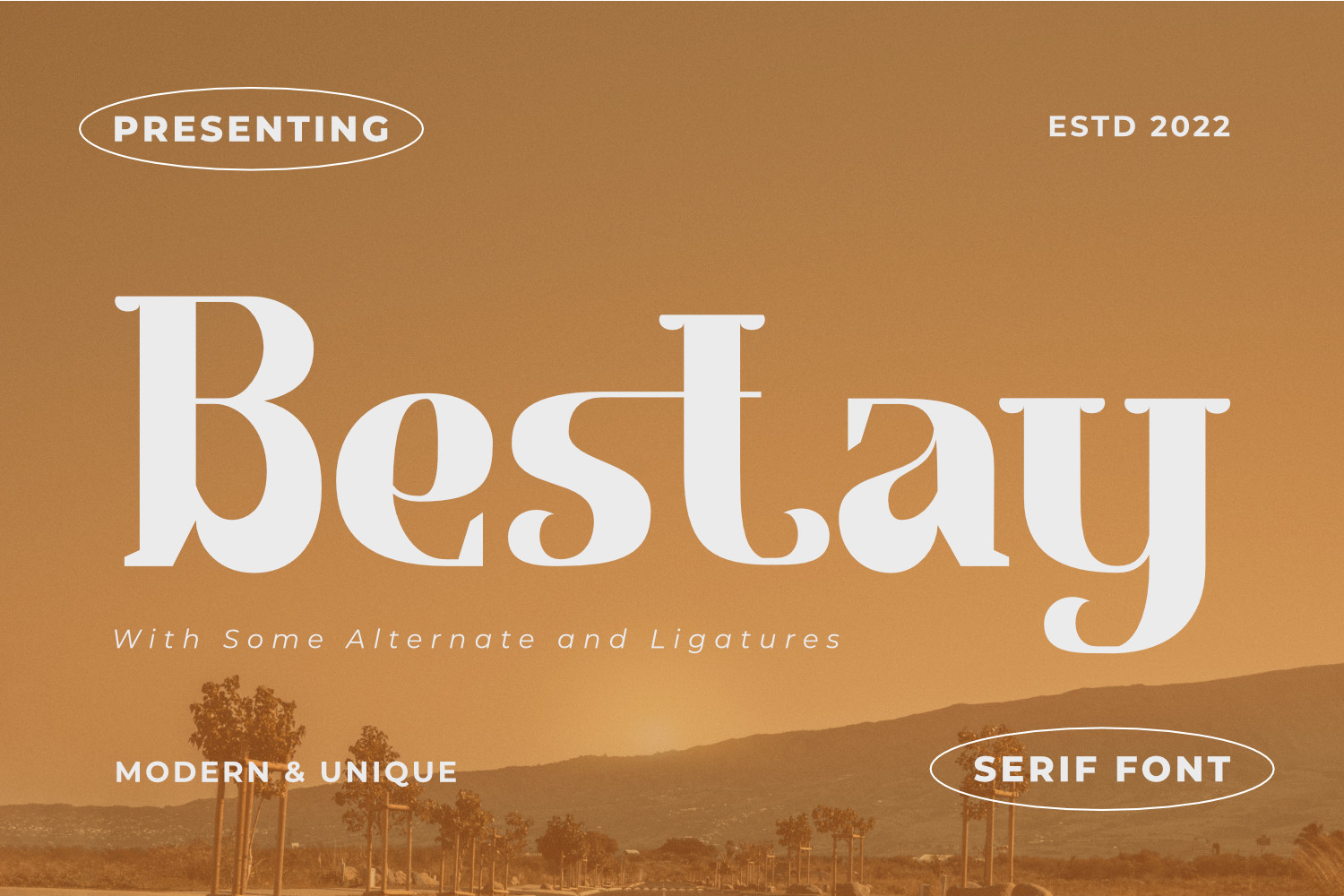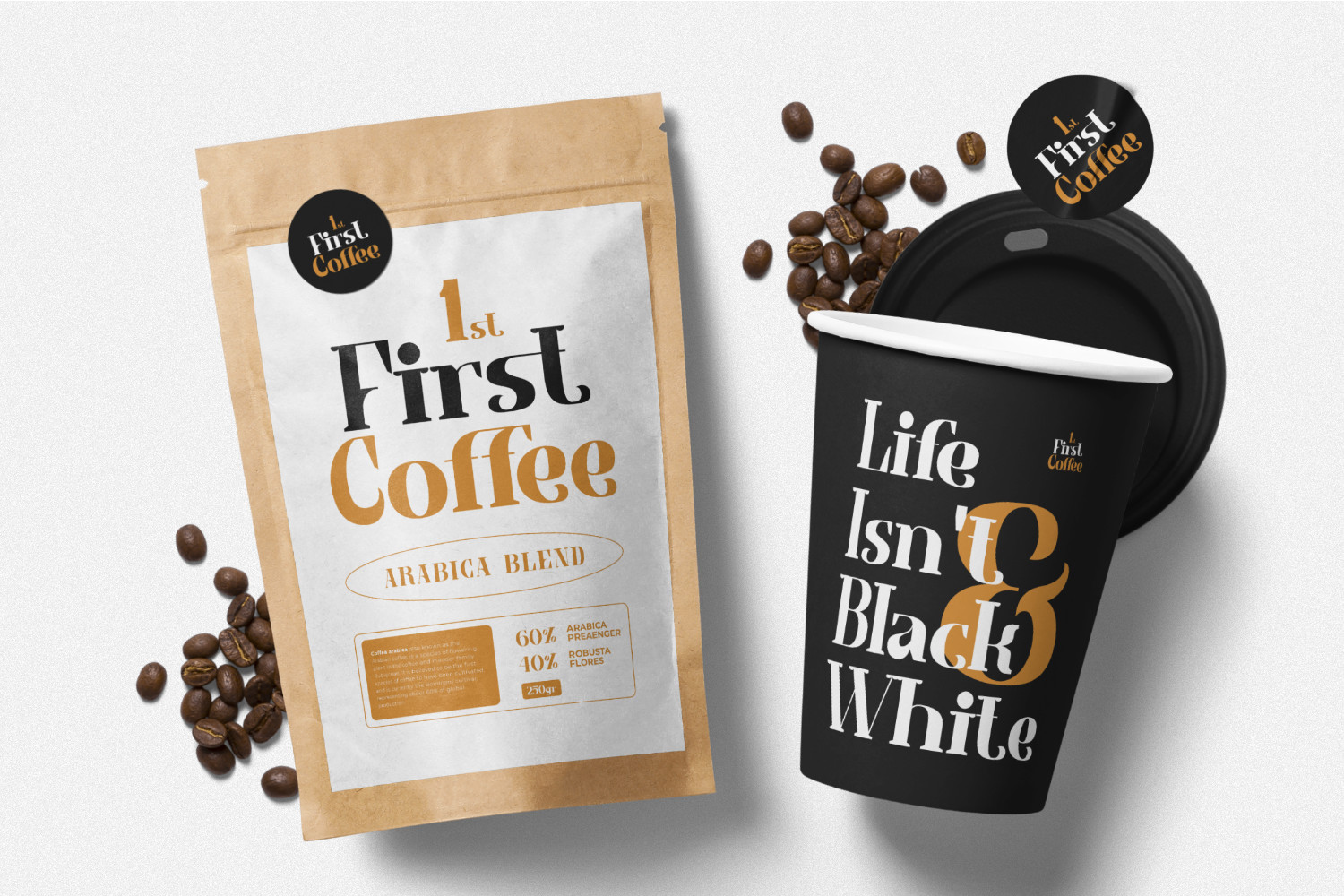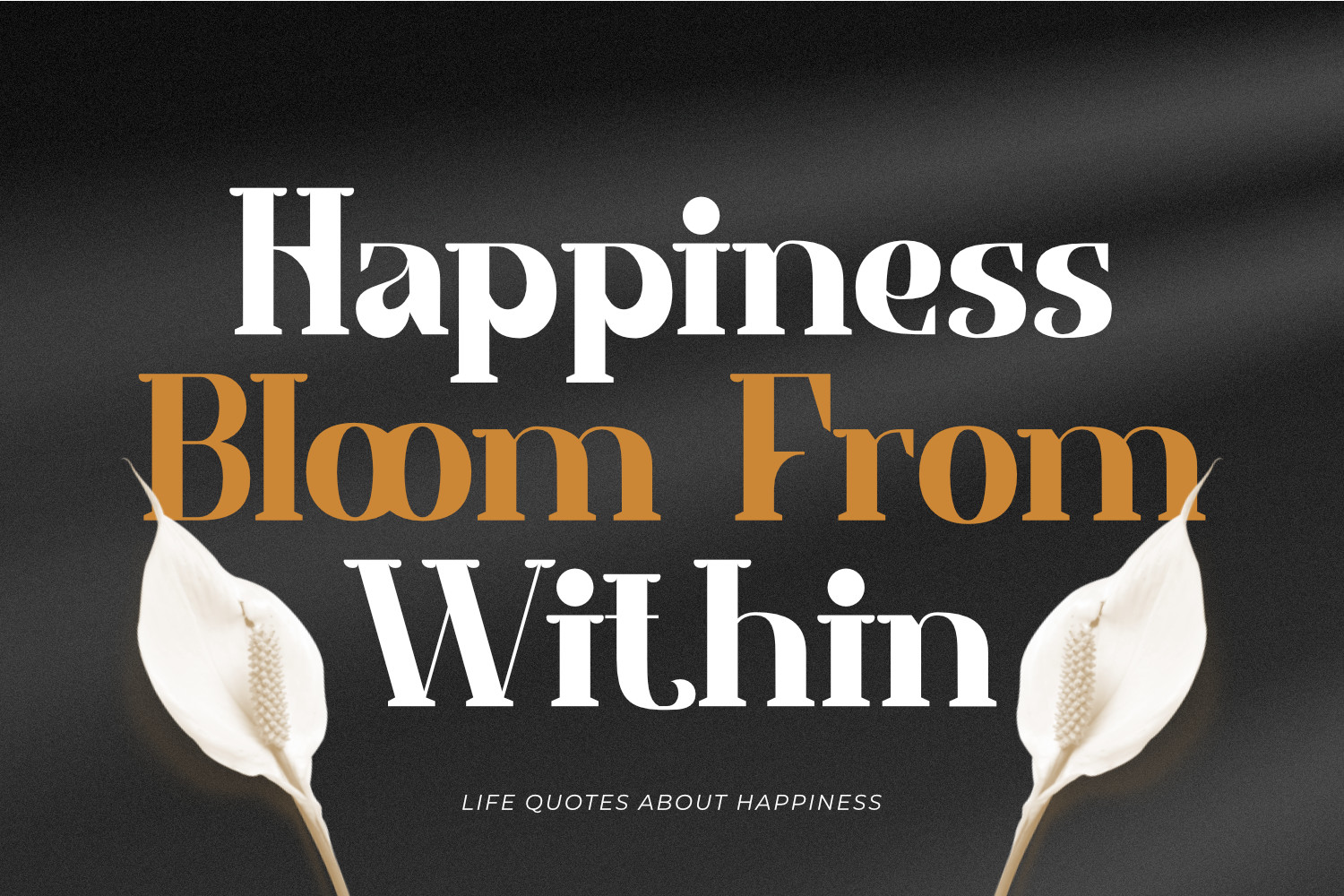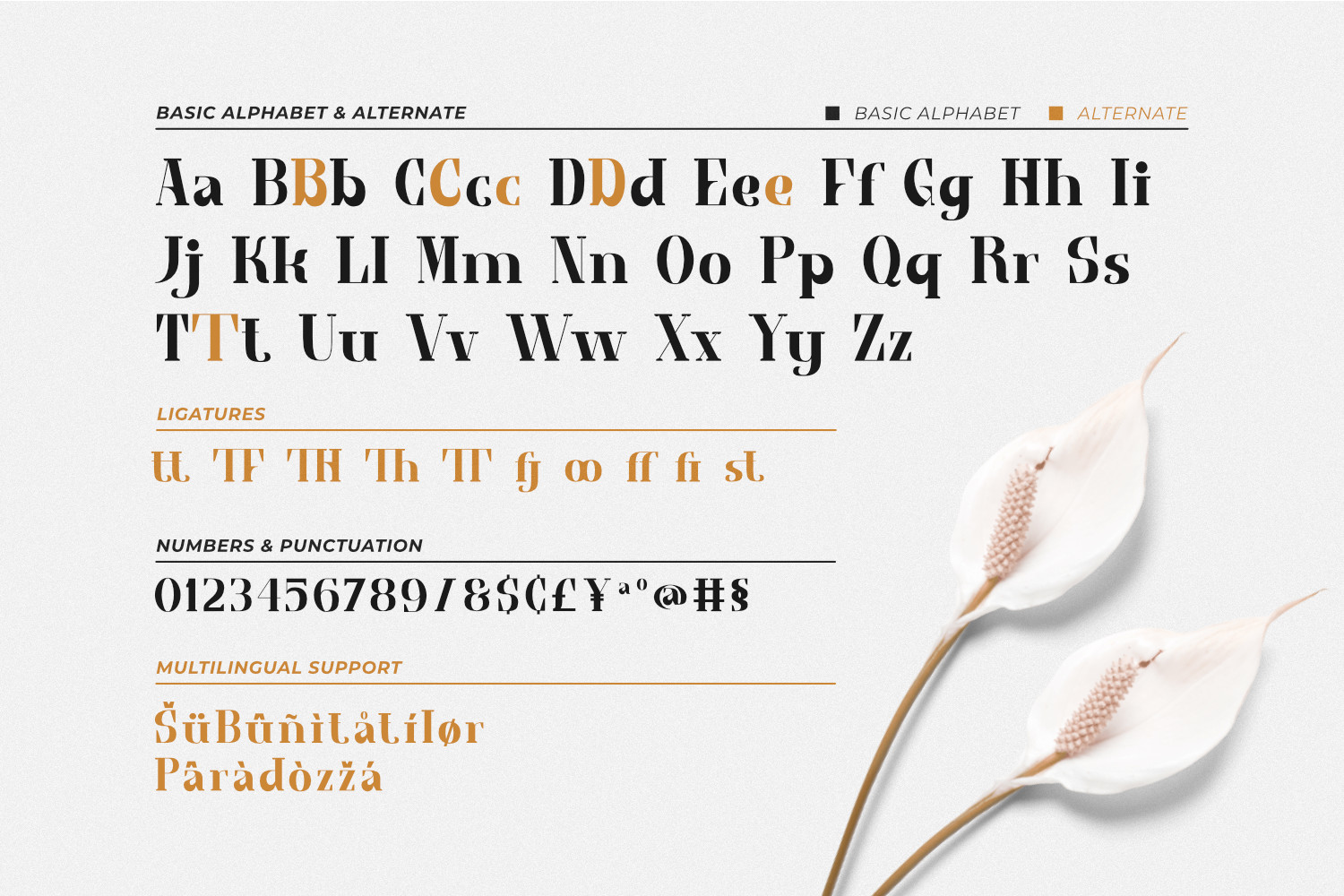
Bestay is a modern serif font that blends timeless elegance with contemporary flair. With its strong contrast and distinctive terminals, Bestay delivers an editorial feel while remaining highly legible. It features unique alternates and stylish ligatures, offering plenty of flexibility for branding, packaging, headlines, and display projects that seek a refined yet modern typographic voice.
The serif structure is balanced with curvaceous and sharp elements, making it ideal for both classic and artistic applications. Whether you’re crafting a coffee label, fashion ad, or inspirational poster, Bestay adds sophistication and charm to every composition.